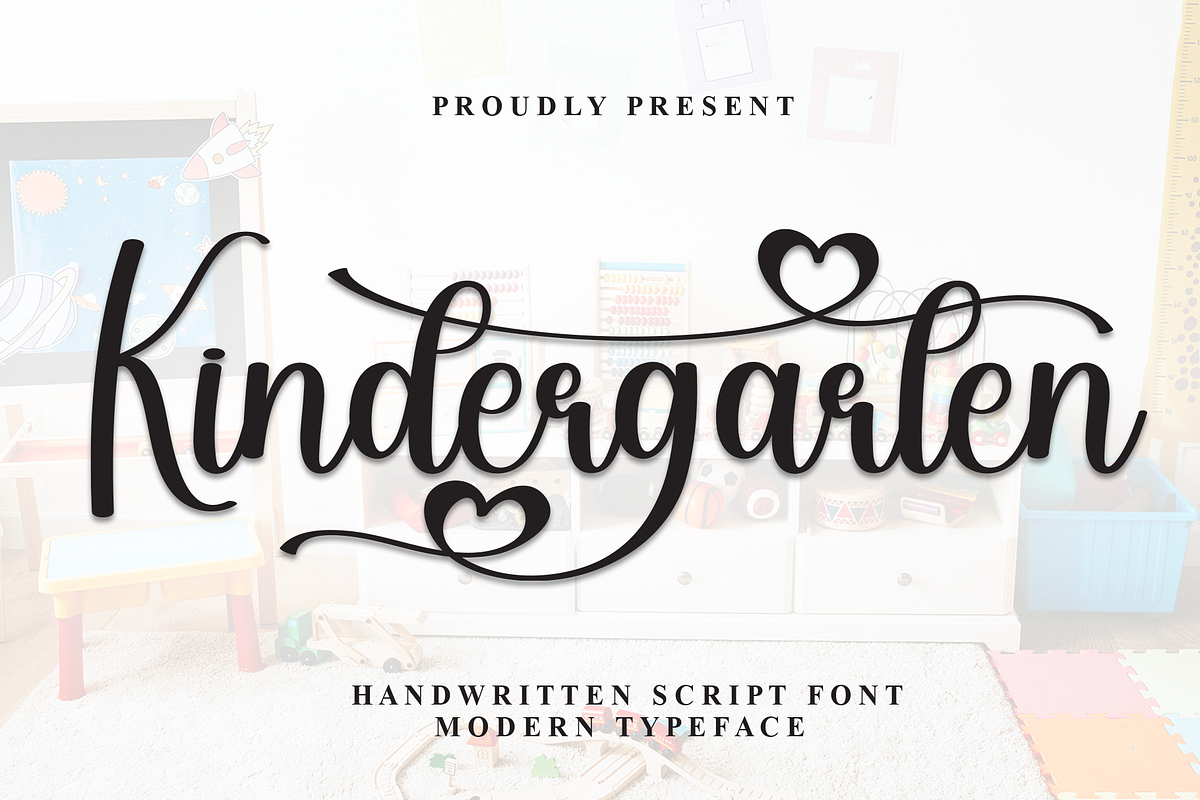
Kindergarten | Script Font Free Download
Kindergarten | Script Font Free Download is a playful and heartwarming handwritten font designed to capture the joy and innocence of childhood. Please note: you must purchase this font for commercial use, but you can test it through a free download. With its smooth strokes, rounded edges, and whimsical flow, Kindergarten is perfect for children’s books, classroom materials, birthday invitations, kids' apparel, and creative branding.
This script font adds a personal, cheerful touch to every project—ideal for teachers, parents, and designers crafting with love and imagination. Whether you're designing learning tools or fun DIY projects, Kindergarten | Script Font Free Download brings a sense of friendliness and approachability to your work. Fully compatible with Adobe Illustrator, Photoshop, Canva, and more. Download it today for personal use and let your typography play, learn, and grow with the joyful style of Kindergarten.